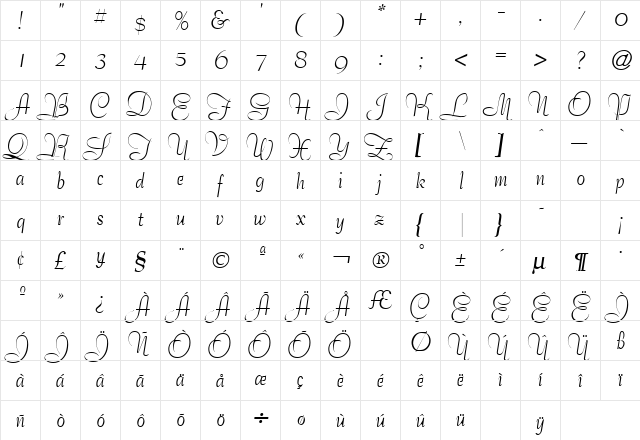
Bernhard Tango Swash Regular
Design Context for Bernhard Tango Swash Typeface
Bernhard Tango Swash flows with the natural rhythm of handwritten lettering, making it ideal for designs that call for warmth and personal expression.
Font Pairing: Combine Bernhard Tango Swash with a simple geometric sans for maximum contrast — the tension between flowing curves and clean structure is a classic typographic pairing.
Pro Tip: Use Bernhard Tango Swash for short runs of text — names, titles, or taglines. Extended body copy in script faces tires the eye quickly.